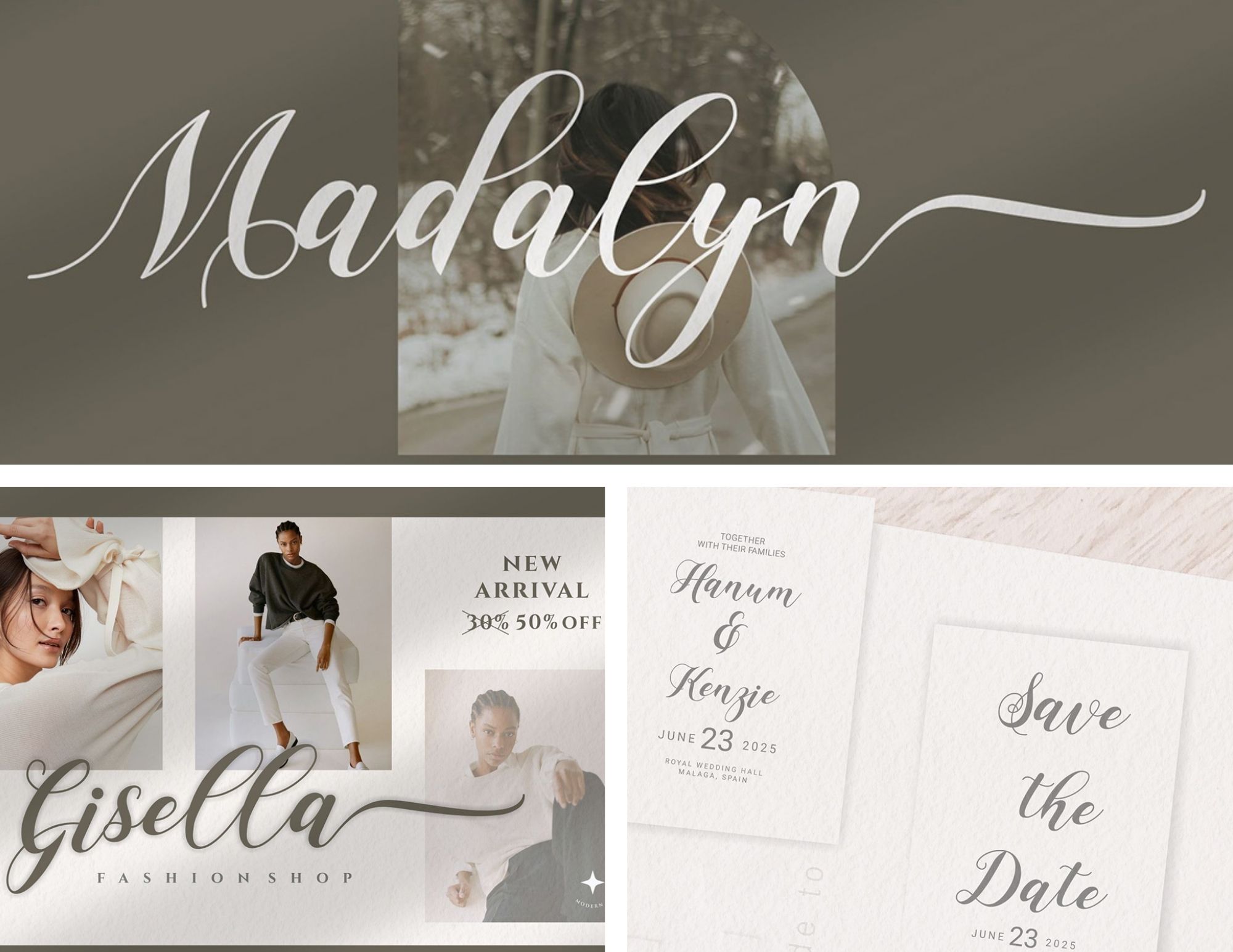
Smooth, elegant and stylish handwritten Madalyn - Calligraphy Script font, it's a perfect fit for business cards, invitations, wedding decoration design, company logos, book titles, brand names, etc. Check out here https://bit.ly/3ECAJnb